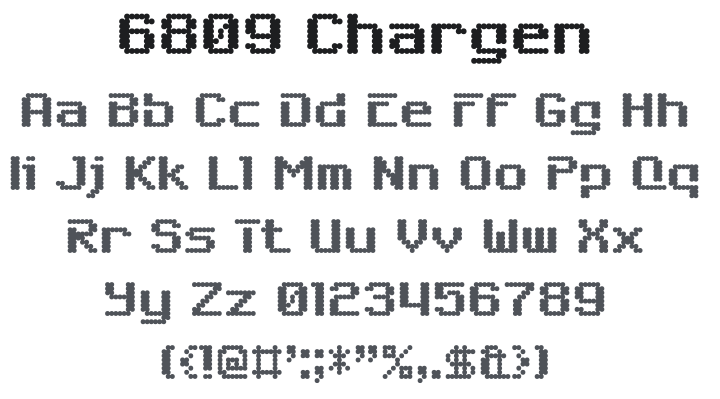
6809 Chargen Font
About 6809 Chargen
6809 Chargen is a dot-matrix techno typeface built from small evenly spaced dots, evoking the character generators of 1980s home computers and early video games. Letters carry deliberate quirky gaps that give it an amateur sci-fi charm. It's ideal for retro game UIs, pixel-art themed designs, arcade-style titles, and any project channeling nostalgic early-computing aesthetics.